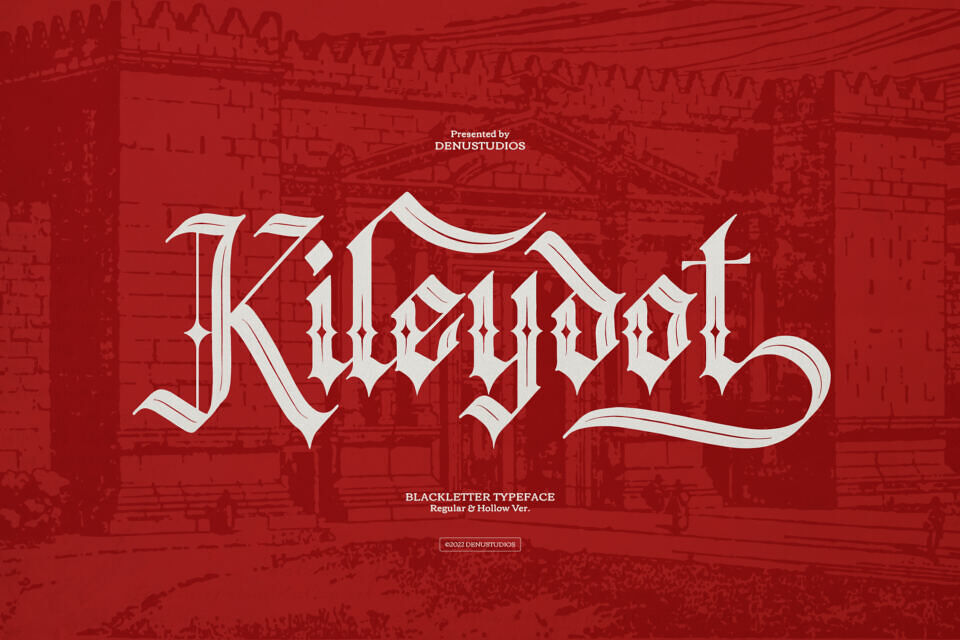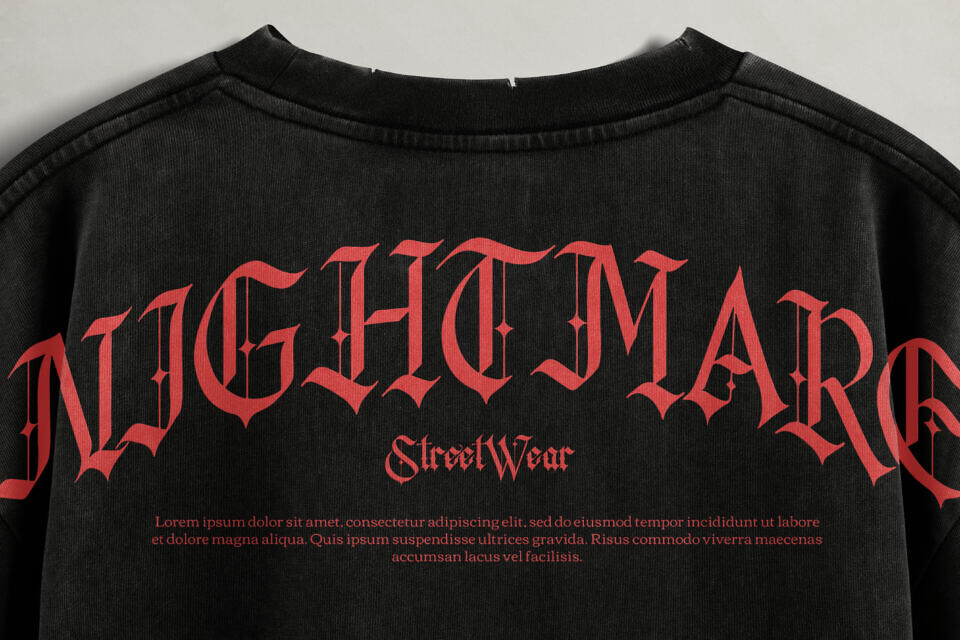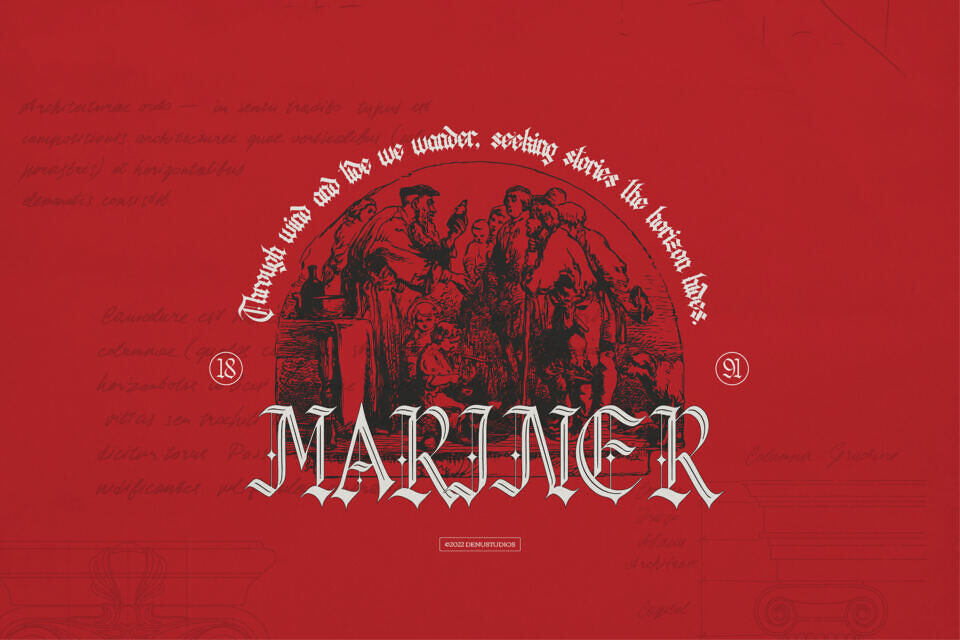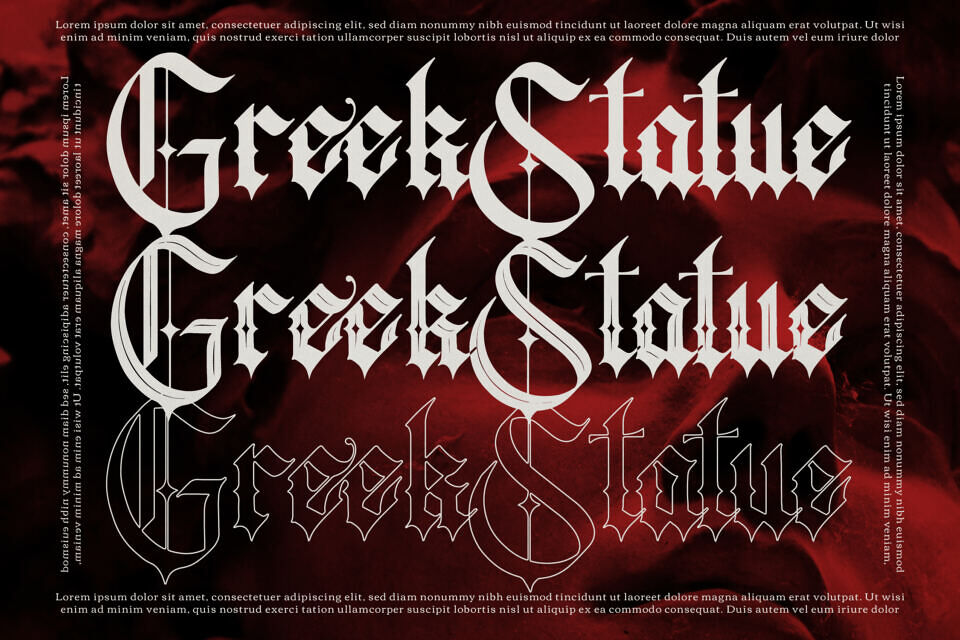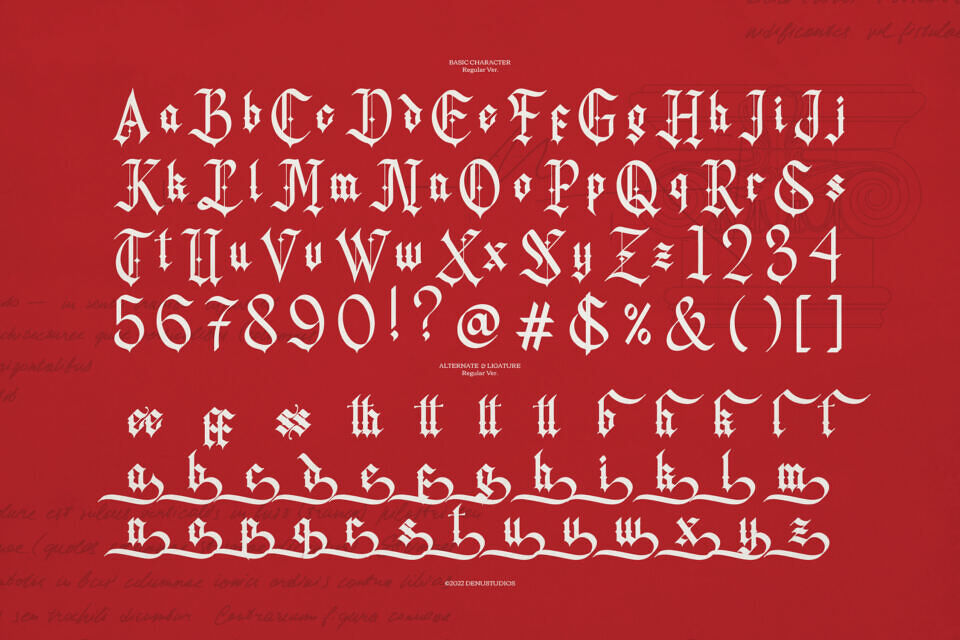
Kileydot Font
Kileydot is a Blackletter Typeface from Denustudios, suitable for any projects such as: logos, branding projects, homeware designs, product packaging, mugs, quotes, posters, shopping bags, t-shirts, book covers, name card, invitation cards, greeting cards, label, photography, watermark, special events, and all your other lovely projects that need a Blackletter taste.